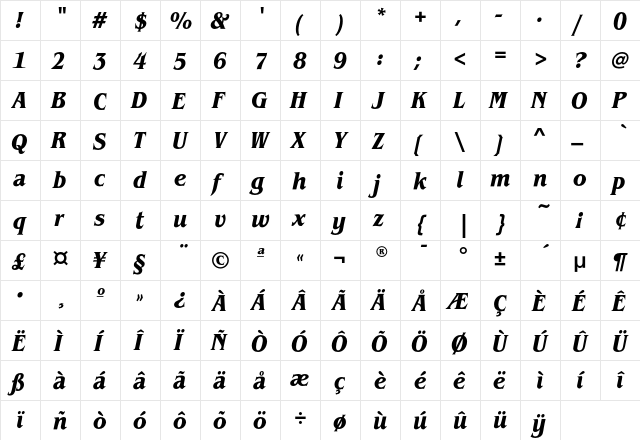
BenguiatEF-BoldCondensedIta Regular
Design Context for BenguiatEF-BoldCondensedIta Typeface
BenguiatEF-BoldCondensedIta takes a measured approach to typography — its balanced proportions and neutral character make it a reliable workhorse for both digital and print work. The heavy weight commands attention and anchors typographic hierarchies. Its narrow stance lets it pack a punch even in space-constrained designs.